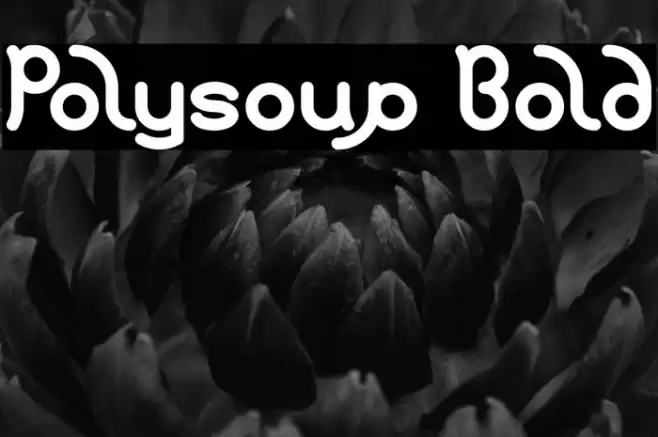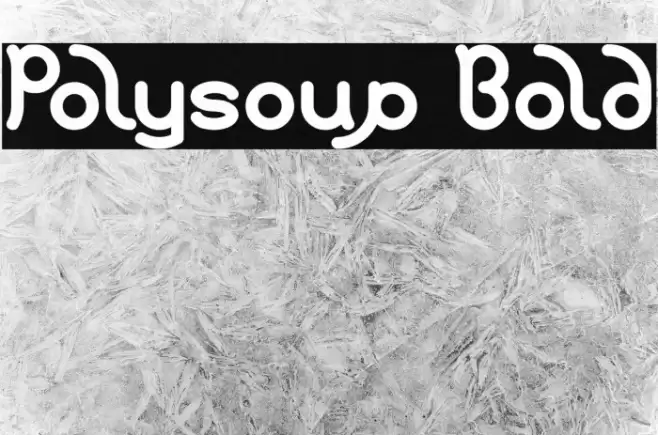
Polysoup Bold Font
Polysoup Bold Description
This font features a bold and playful design with a unique, rounded style. The characters have a consistent thickness, creating a cohesive and modern look. The uppercase and lowercase letters maintain a uniform appearance, with smooth curves and a slightly whimsical flair. The numbers and special characters are equally bold, ensuring readability and visual impact. The overall design is both approachable and distinctive, making it suitable for a variety of creative applications.
A bold, playful font with rounded, modern characters from Uncategorized fonts.
- Proposed Projects: Ideal for branding, children's books, playful posters, and creative logos.